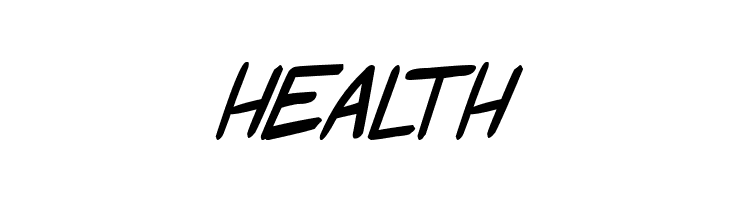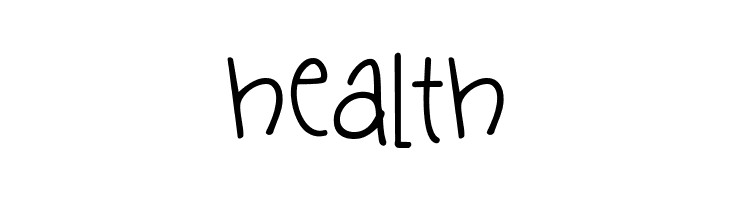
A dynamic, italicized handwritten font with smooth, continuous strokes.
A raw, hand-drawn font with jagged, energetic strokes.
A playful, handwritten font with irregular strokes and a casual, creative appearance.
A playful, hand-drawn font with a whimsical and friendly style.
A playful, casual handwritten font with smooth curves and a personal touch.